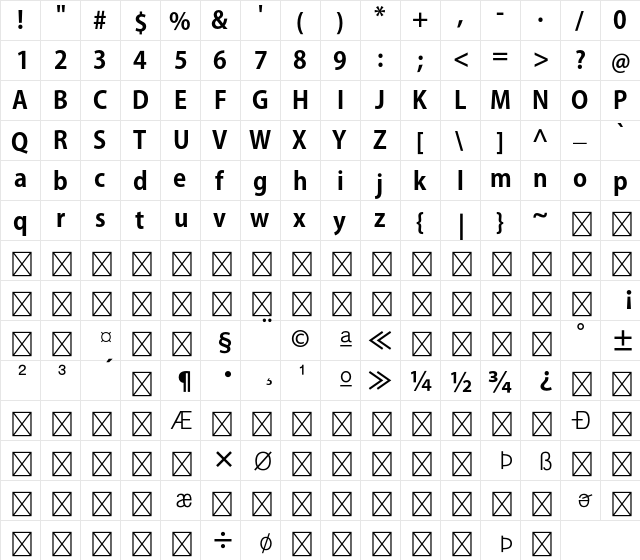
Adobe Gothic Std B Bold
Design Context for Adobe Gothic Std B Typeface
Adobe Gothic Std B has the quiet confidence of well-executed sans-serif typography: versatile, unobtrusive, and dependable at any size. Its bold stroke weight gives it real presence on the page.
A strong choice for UI design, app interfaces, bold signage, and corporate brand systems.
Font Pairing: Use Adobe Gothic Std B for headlines alongside a lighter-weight sans or serif for body copy to establish clear visual hierarchy.
Pro Tip: Pair Adobe Gothic Std B with a display or serif font for headlines — its neutral character makes it an excellent supporting player in complex typographic systems.